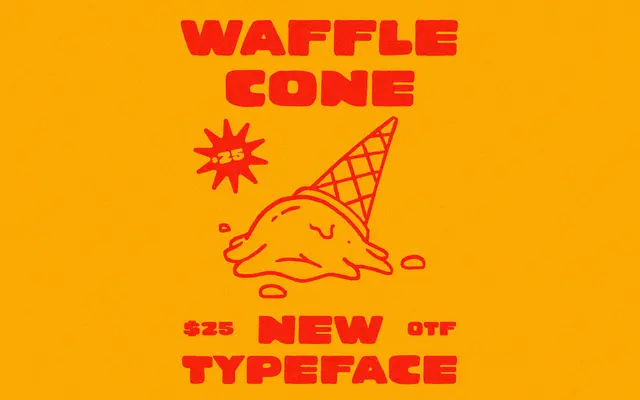
Waffle Cone
A single-weight, heavy display typeface built for headlines and packaging where a thick, wide presence is the entire point.
Wide proportions and heavy strokes make it unsuitable for text but well-suited to logos, packaging, t-shirt graphics and poster headlines. The glyph set covers 151 characters with basic Latin and a modest selection of accented letters. Sold as a flat-rate commercial licence with no seat or traffic restrictions, which makes it accessible for small studios and independent designers.
A thick, wide display typeface with a single weight, designed explicitly for maximum visual impact at large sizes rather than text use. Its bold, informal character places it firmly in the display category.